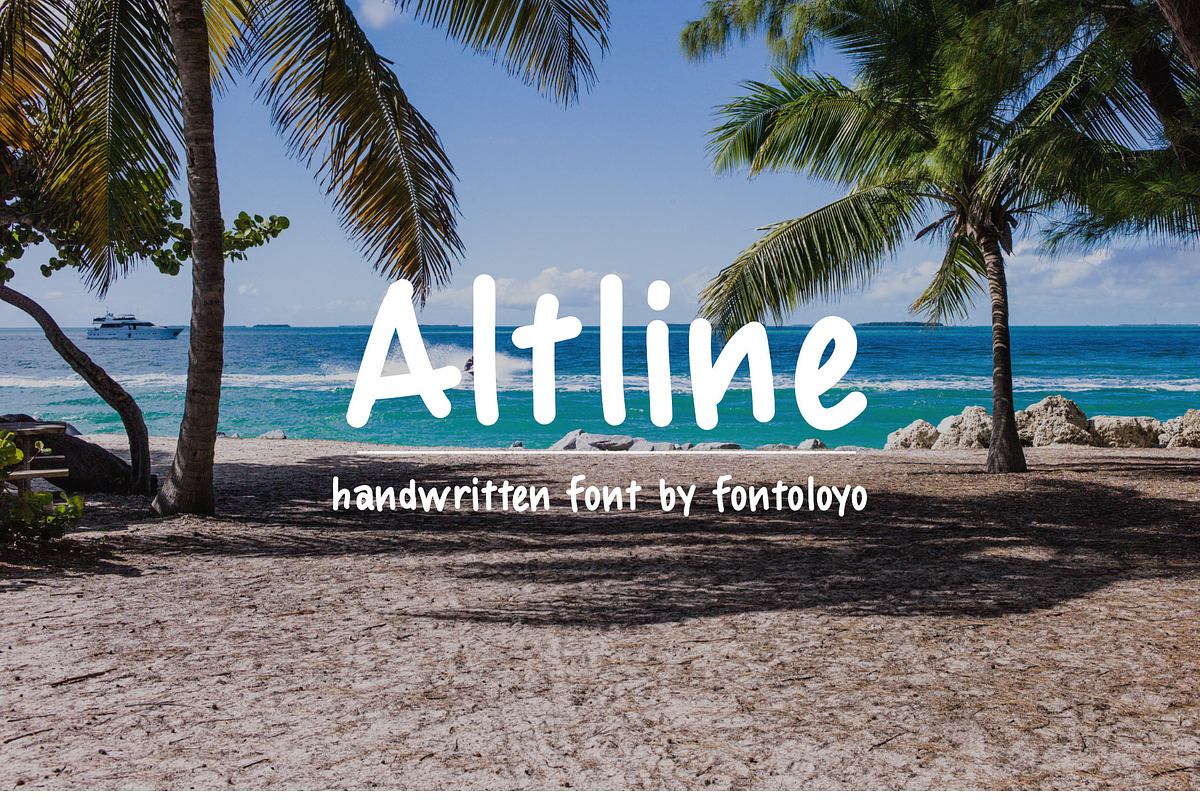
Altline is a playful and bold handwritten font designed by Fontoloyo Store. Its casual and friendly appearance makes it suitable for various creative projects.
Design: Altline features rounded, hand-drawn characters with a whimsical touch, adding a unique flair to your designs.
Usage: Ideal for children's books, playful branding, greeting cards, and informal posters.